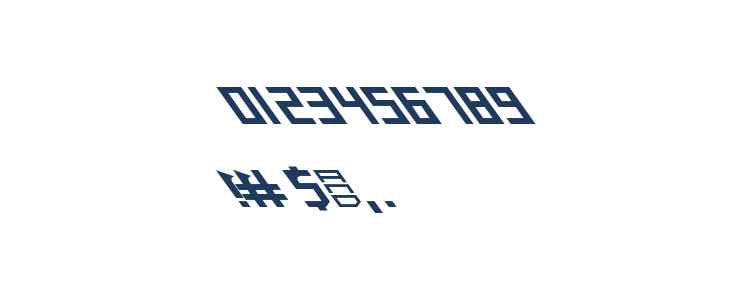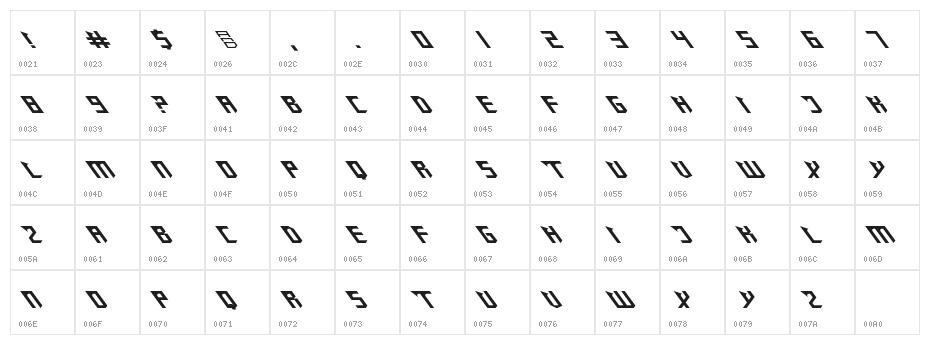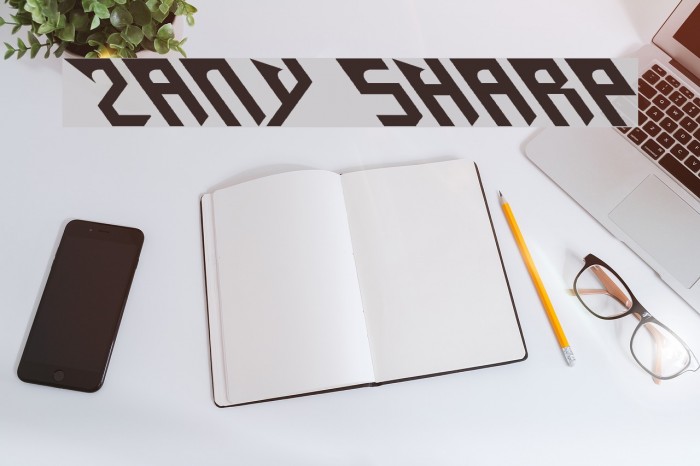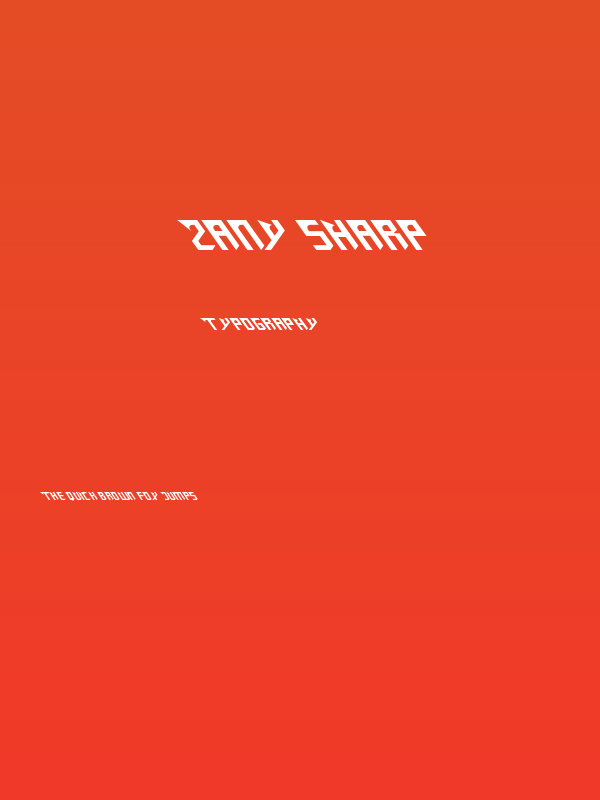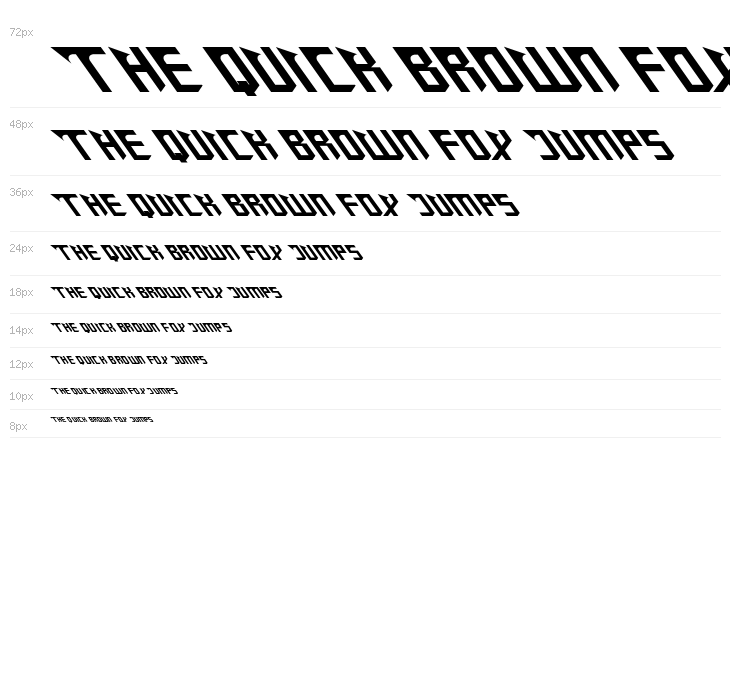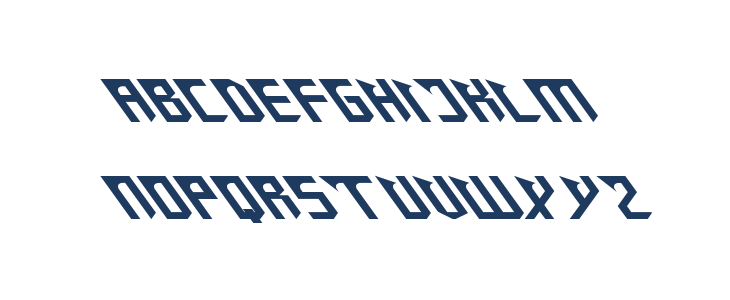
Zany Sharp Font
Zany Sharp Description
This font features a bold and angular design, characterized by sharp edges and a futuristic aesthetic. The letters are slanted, giving a sense of motion and dynamism. The uppercase and lowercase letters share a consistent style, with each character exhibiting a geometric form. The numbers and special characters maintain this angular theme, ensuring a cohesive look across all elements. The font's unique style makes it stand out, ideal for projects that require a modern and edgy appearance.
| Proposed Projects | Ideal for sci-fi themed designs, video game titles, tech branding, and modern posters. |